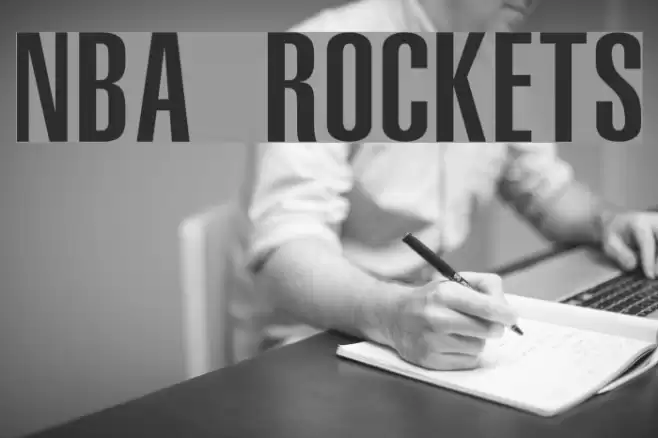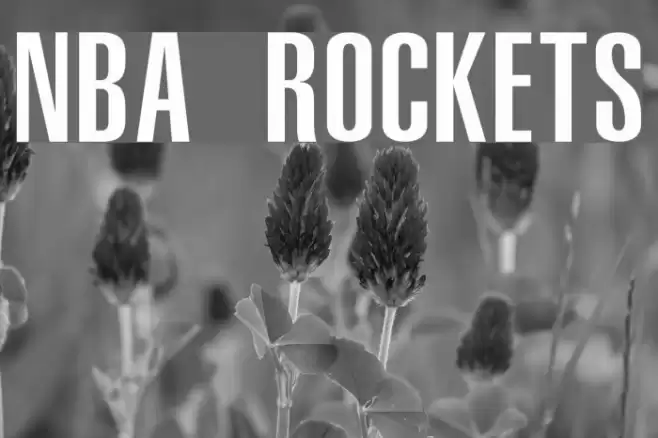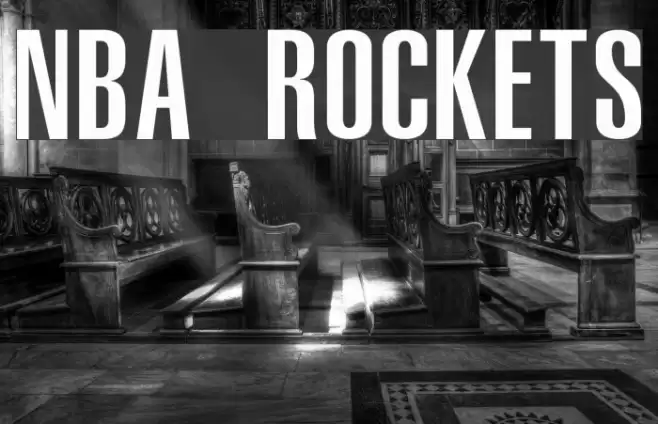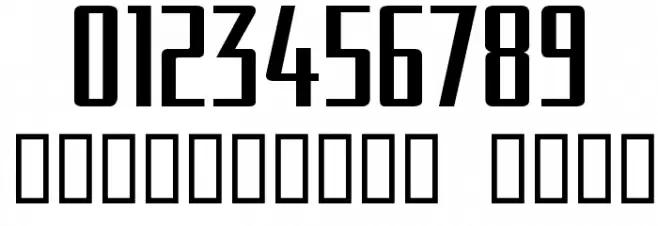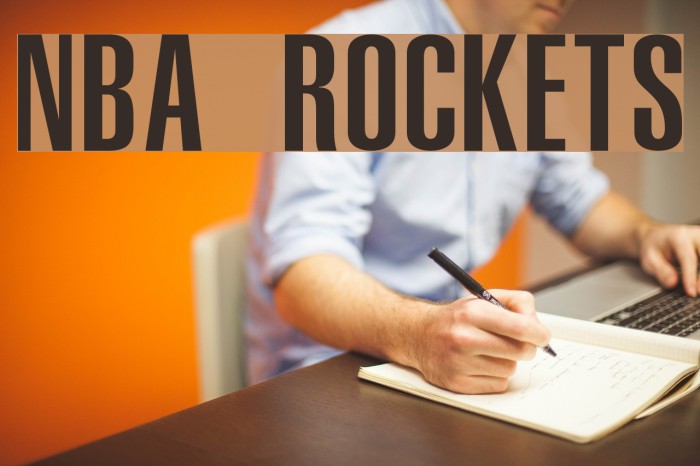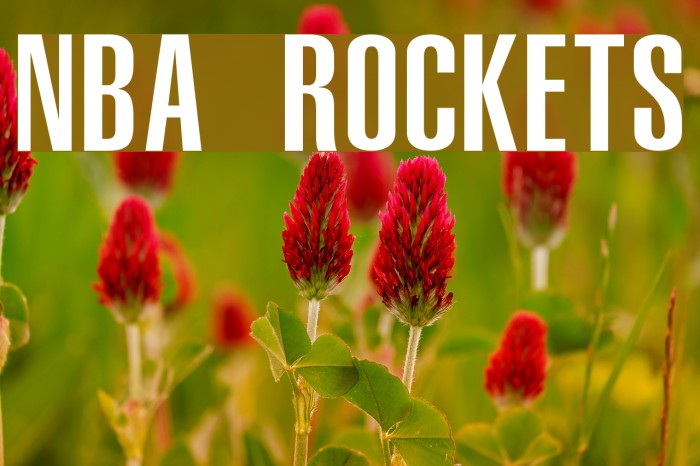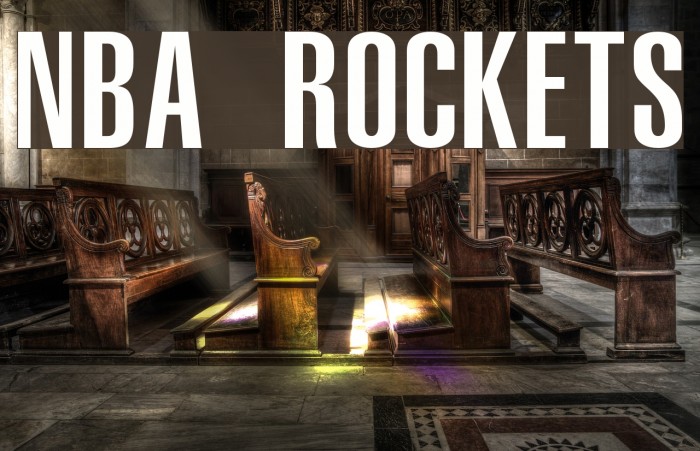
NBA Rockets Font
NBA Rockets Description
This font features a bold and impactful design, characterized by its tall, narrow letterforms. The uppercase letters are particularly striking, with a strong vertical emphasis and minimal contrast in stroke width, giving it a modern and assertive appearance. The numerals are equally bold, maintaining the same verticality and weight as the letters, ensuring consistency across the typeface. The absence of lowercase letters and special characters suggests a focus on uppercase display, making it ideal for headlines or branding where a strong visual impact is desired.
A bold, narrow font with strong vertical emphasis, ideal for impactful headlines from Uncategorized fonts.